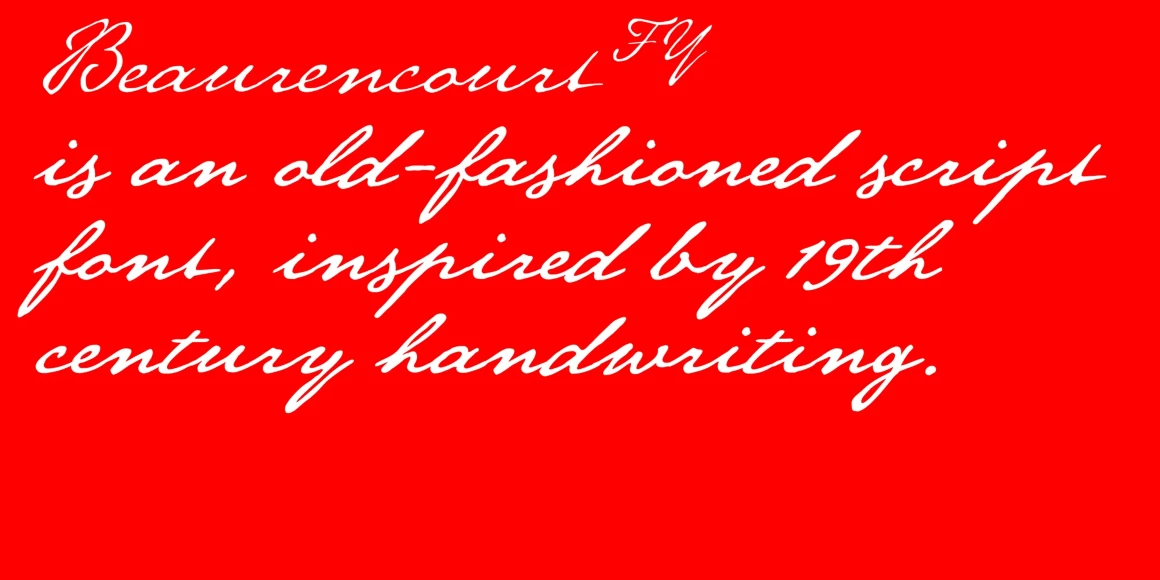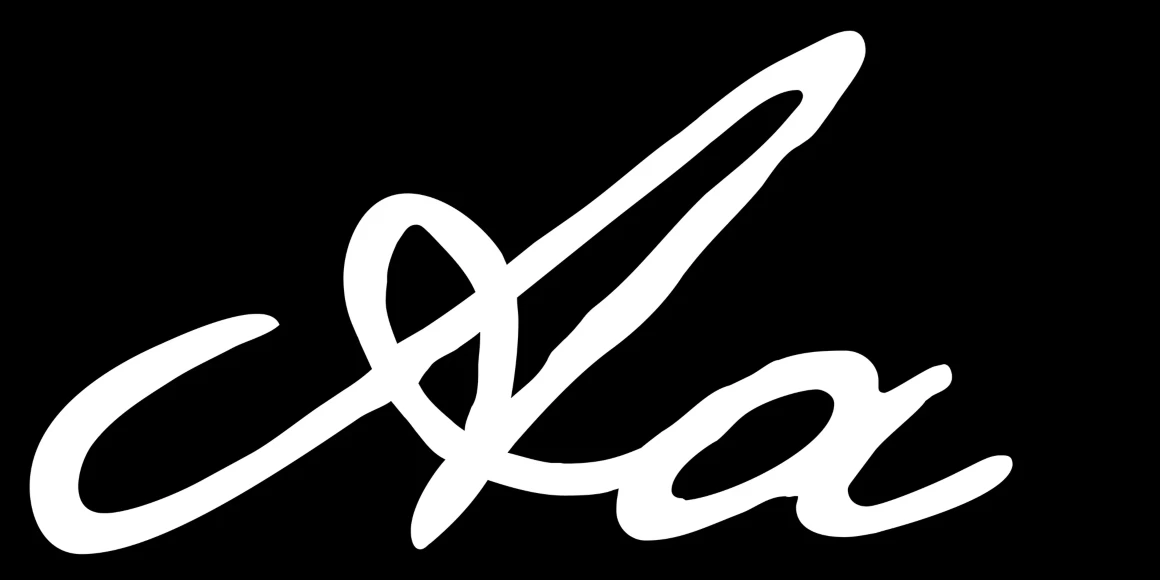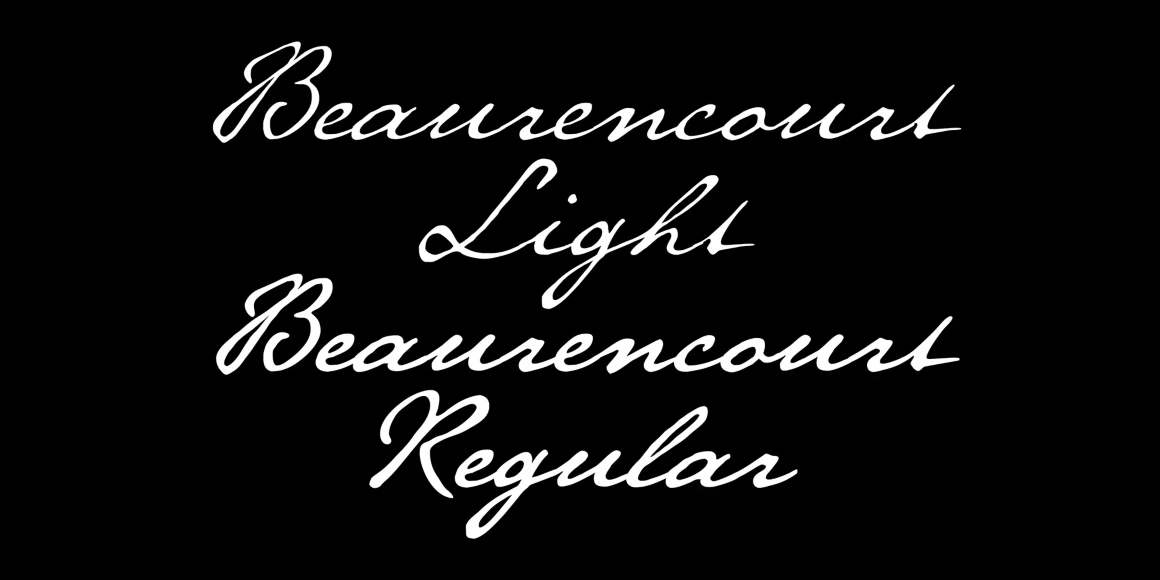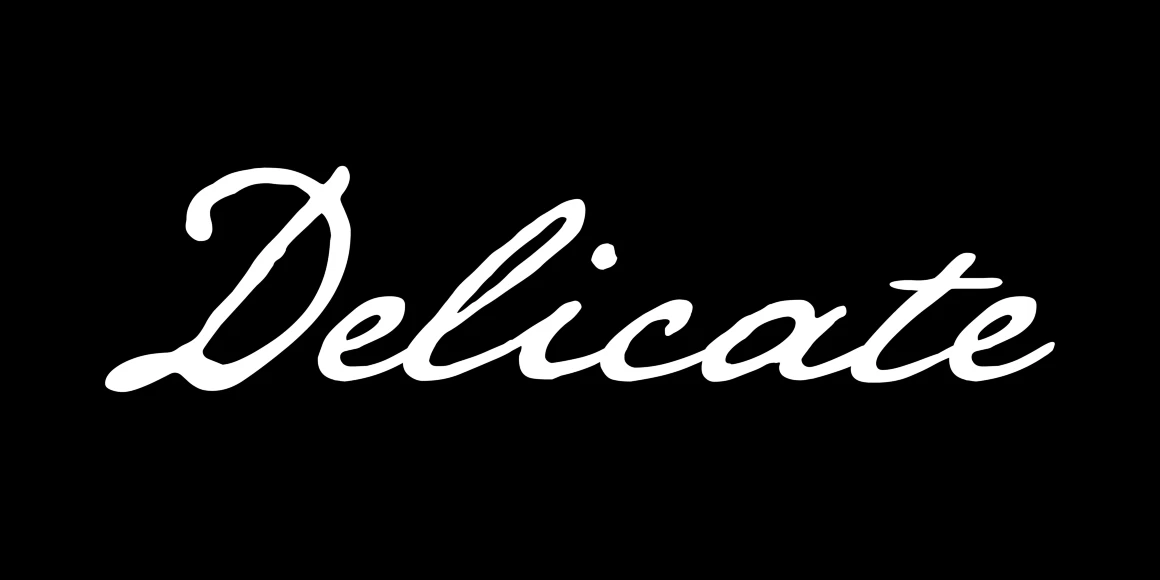
Beaurencourt
By Gia Tran & Jérémie Hornus
Beaurencourt Light
Beaurencourt Regular
Beaurencourt FY is an old-fashioned script inspired by 19th-century handwriting, offering a delicate, authentic feel. Designed to perform well at small sizes and reveal the texture of ink on paper in display settings, it features connected forms, alternates, loops, and ink spread effects. Available in two weights, Regular and Light, and lots of typographic trimmings including oldstyle figures, ligatures, and stylistic alternates. A perfect choice for film titles, party invitations, and packaging.